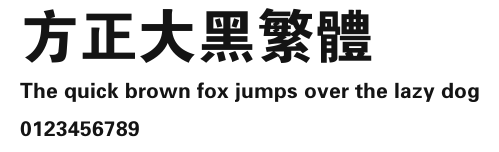
方正大黑繁体 Preview
• Font Name: 方正大黑繁体
• Font ID: Founder:方正大黑繁体 Regular
• Full Font Name: 方正大黑繁体
• Version: 5.00
• PostScript Name: FZDHTFW--GB1-0
• Character Count: 7791
About 方正大黑繁体.ttf
方正大黑繁体.ttf is a modern, elegant sans-serif font designed for ultimate readability and visual harmony. Perfect for branding, headlines, web design, and print materials.